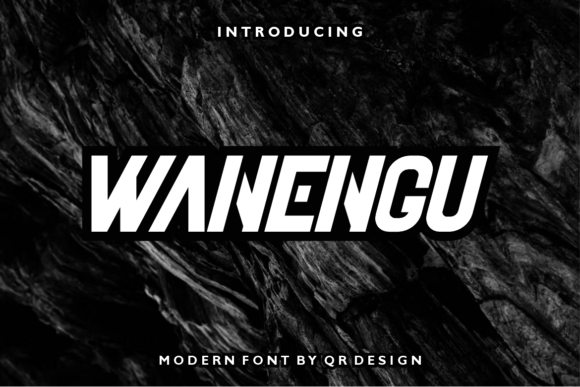
Welcome to the world of Wanengu, a captivating sans serif font that exudes a modern and striking aura. With its clean lines and sharp edges, Wanengu is the perfect choice for designers and creatives seeking a font that commands attention and makes a lasting impression.
Immerse yourself in the versatility of Wanengu, a font that effortlessly adapts to a myriad of design projects. Whether you're crafting eye-catching logos, captivating website designs, or stunning marketing materials, Wanengu rises to the challenge, delivering exceptional results every time.
Unleash your creativity and let Wanengu elevate your designs to new heights. Its contemporary aesthetic adds a touch of sophistication and elegance to any project, leaving a lasting impression on your audience.
Step into the future with Wanengu, the font that embodies the essence of modern design. Its sleek and streamlined appearance perfectly complements contemporary aesthetics, ensuring your projects exude an air of innovation and cutting-edge style.
Join the countless designers and creatives who have discovered the allure of Wanengu, a font that consistently delivers exceptional results. Its user-friendly nature makes it a breeze to incorporate into your projects, allowing you to focus on your creative vision without technical hurdles.
Indulge in the beauty of Wanengu, a font that captivates and inspires. Its intricate details and harmonious proportions create a visual feast that draws the eye and leaves a lasting impression.